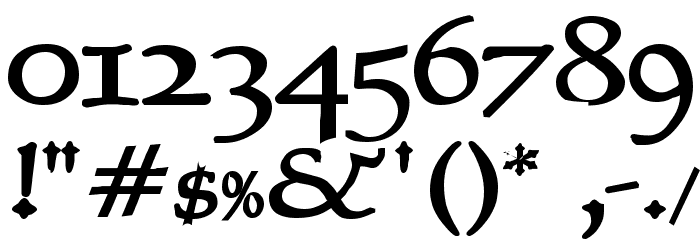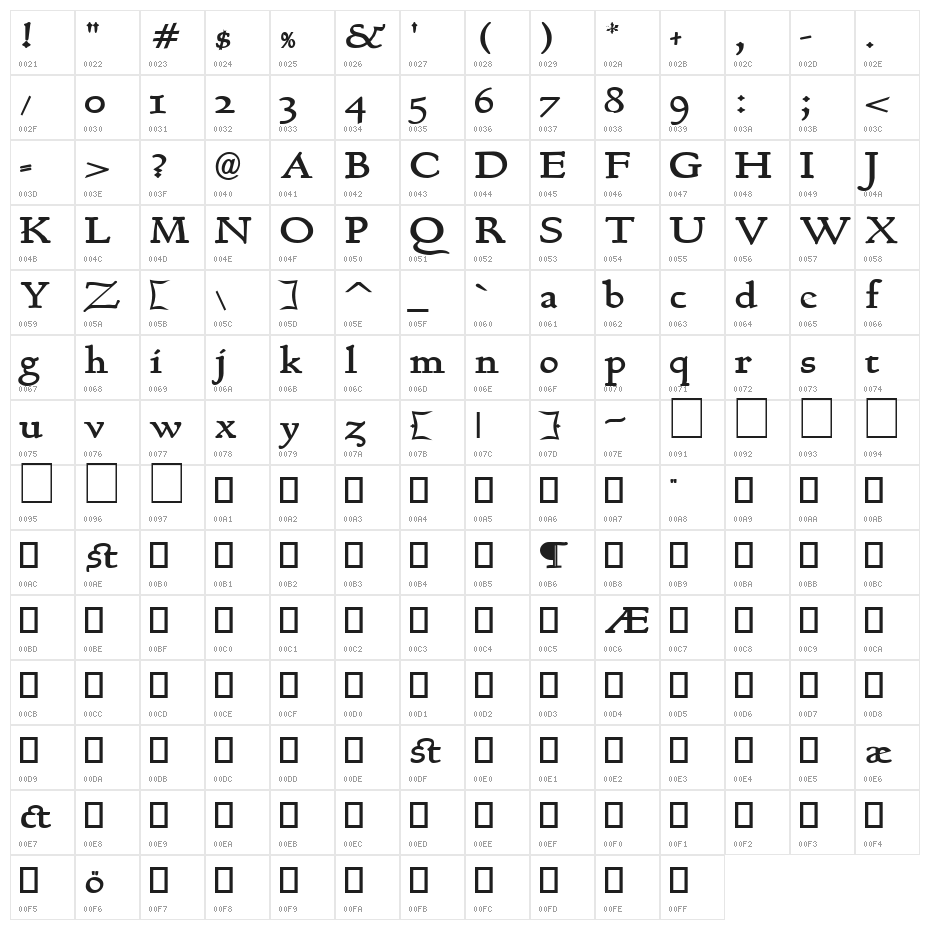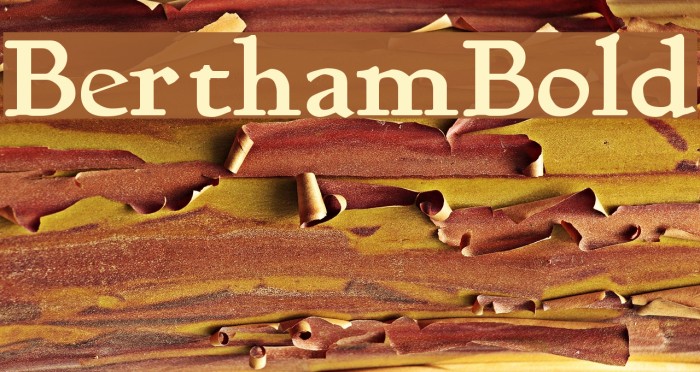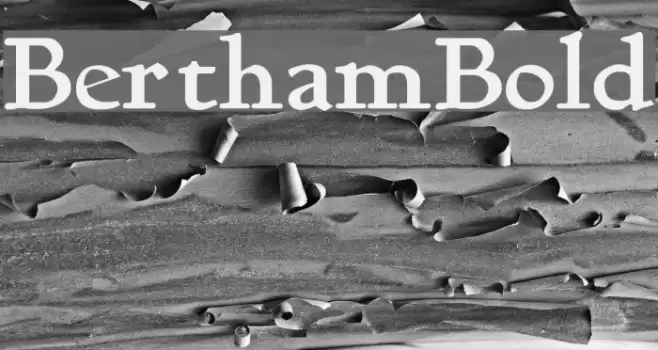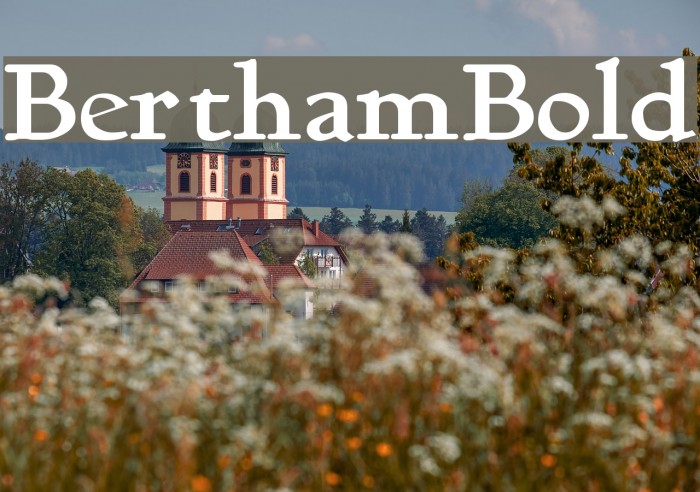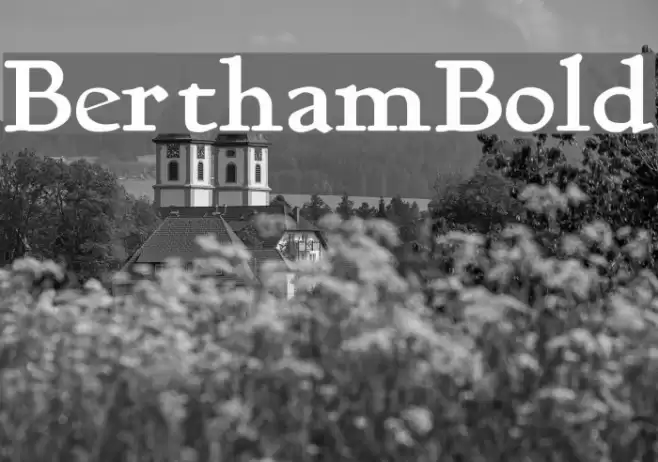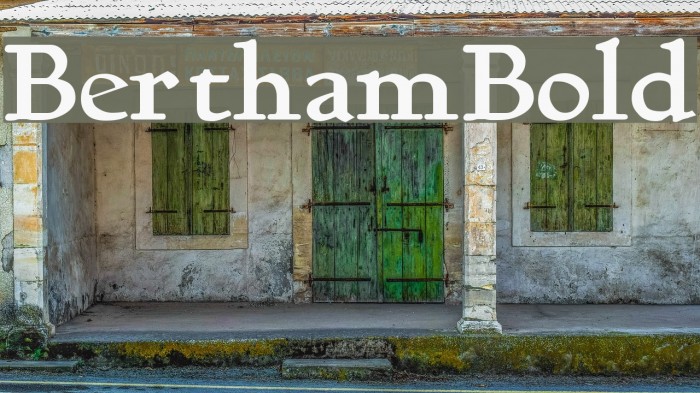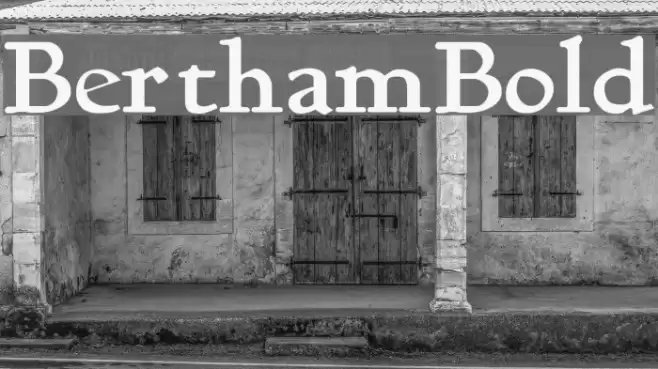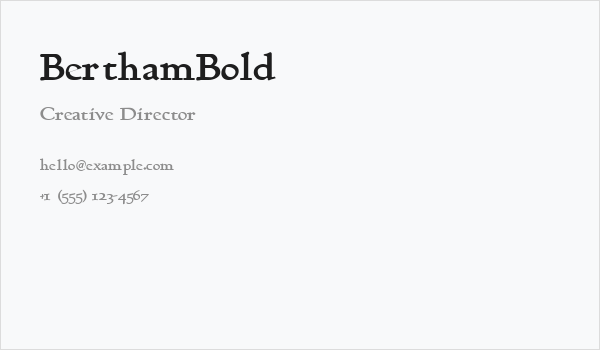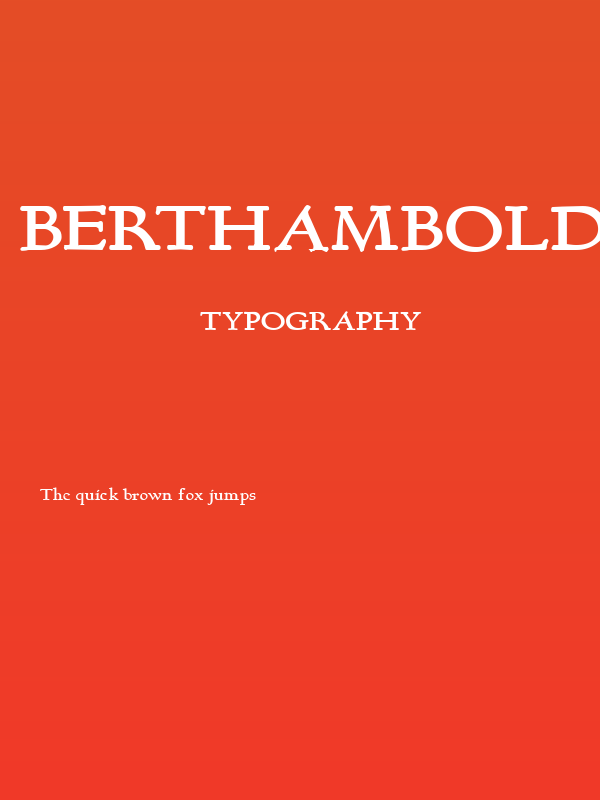
BerthamBold Font
BerthamBold Description
This font features a classic serif style with a bold weight, offering a strong and authoritative presence. The uppercase letters are elegantly designed with pronounced serifs, while the lowercase letters maintain a consistent and harmonious flow. The numerals are distinct and clear, making them easily readable. Special characters are crafted with attention to detail, ensuring they complement the overall aesthetic. The font's boldness and traditional serif elements make it suitable for projects that require a touch of elegance and formality.
| Use Case | Headlines, Logos, Editorial design |
| Proposed Projects | Ideal for book covers, formal invitations, branding, and editorial design. |